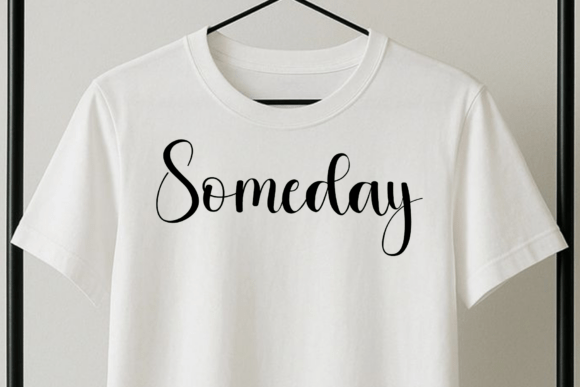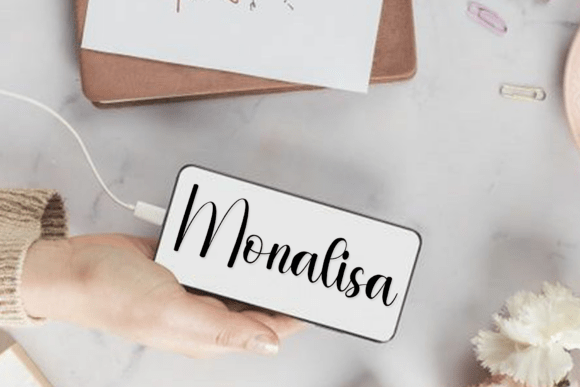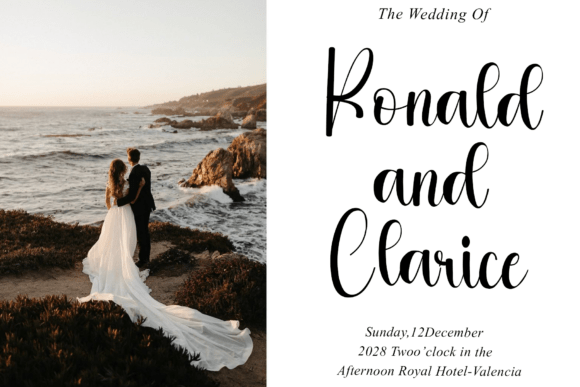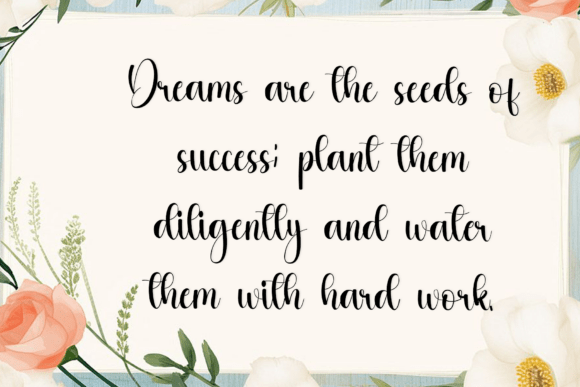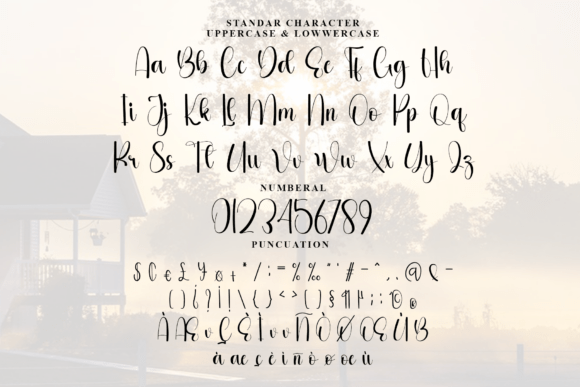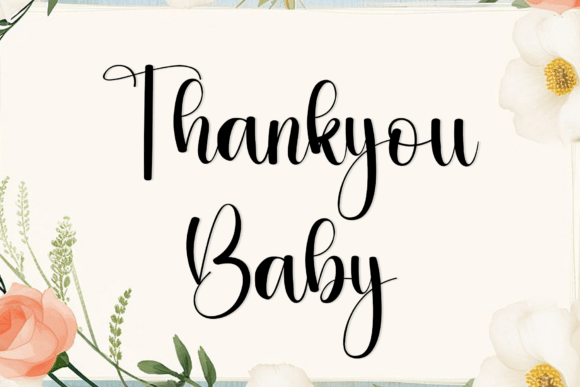
Unlock the Power of Elegant Design with Dignity Font
Have you ever been working on a design project, pouring your heart and soul into every detail, only to feel like something’s missing? The perfect font can make all the difference, elevating your design from good to great. For designers seeking to add a touch of sophistication and luxury to their work, Dignity Font is the perfect solution.
This beautifully crafted modern handwritten script font is designed to evoke feelings of elegance and refinement. Its smooth, generous curves and elongated strokes give it a signature look that’s perfect for personal branding, photography watermarks, luxury wedding stationery, editorial design, and any project that requires a unique, high-end touch.
With Dignity Font, you’ll be able to add a level of professionalism and authenticity to your designs that’s hard to find with other fonts. Its value lies in its ability to convey a sense of luxury and sophistication, making it a valuable addition to any designer’s toolkit.
Dignity Font Key Features
- Font Family: Dignity Font comes in a single family with 4 weights: Light, Regular, Medium, and Bold.
- Character Set: Supports a wide range of languages, including Latin, Cyrillic, and Greek alphabets, making it suitable for global applications.
- Size: The font family consists of 4 weights, each with a unique set of 600 glyphs, including Latin, Cyrillic, and Greek characters.
- Unique Characteristics: Dignity Font features a unique blend of modern and traditional elements, with a focus on readability and legibility, making it ideal for body text and headlines.
Dignity Font Review
I recently had the chance to work with the Dignity Font, and I’m excited to share my honest thoughts with you. Overall, I think Dignity is a solid choice for any designer looking for a clean and sophisticated font.
- Elegant and refined aesthetic – Dignity Font’s sleek lines and minimal ornamentation make it perfect for formal or corporate projects.
- Highly legible – The font’s clean design ensures that text remains clear and easy to read, even at smaller sizes.
- Versatile – Dignity can be used for a wide range of projects, from business cards and brochures to websites and advertising materials.
- Limited expressiveness – While Dignity is great for formal projects, it may not be the best choice for more creative or playful designs.
- May not be as attention-grabbing – Dignity’s clean design can sometimes make it feel a bit bland or unremarkable.
While Dignity Font may not be the most exciting or attention-grabbing choice, it’s a solid and reliable option for designers who value a clean and sophisticated aesthetic. With its elegant design and high legibility, Dignity is sure to deliver professional results.
The Dignity Font is ideal for use in corporate branding, formal invitations, and elegant presentations. It’s also a great choice for creating a sophisticated and professional atmosphere in logos, brochures, and business cards.
Alternatives to Dignity Font
Merriweather is a classic serif font that exudes elegance and sophistication. It’s ideal for use in formal documents, such as academic papers, business reports, and wedding invitations. Its refined aesthetic makes it a suitable replacement for Dignity Font in situations where a more traditional look is desired.